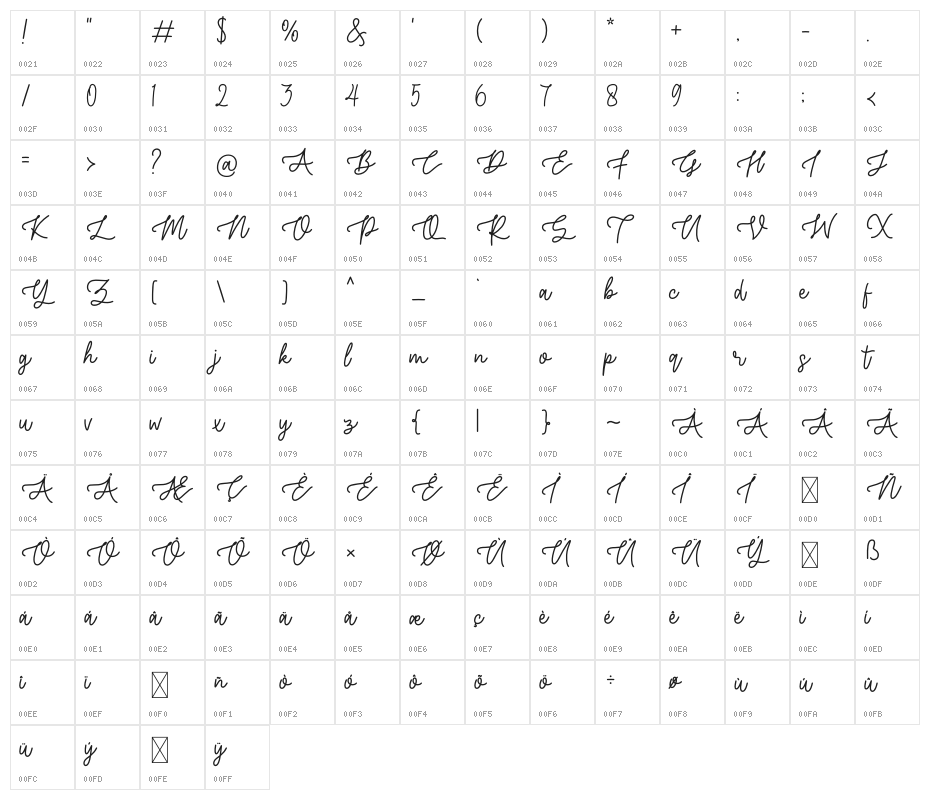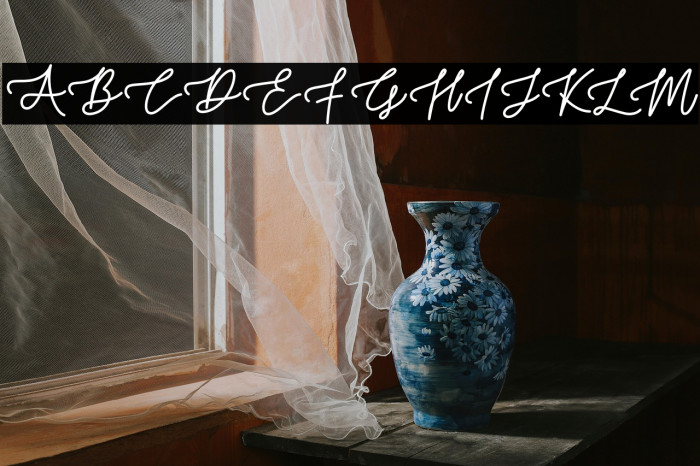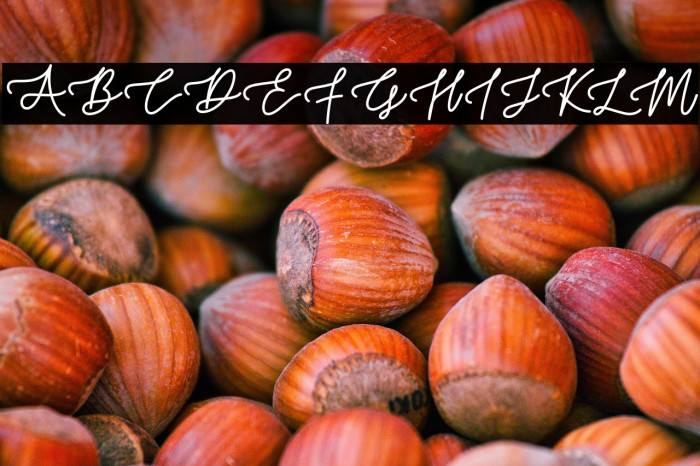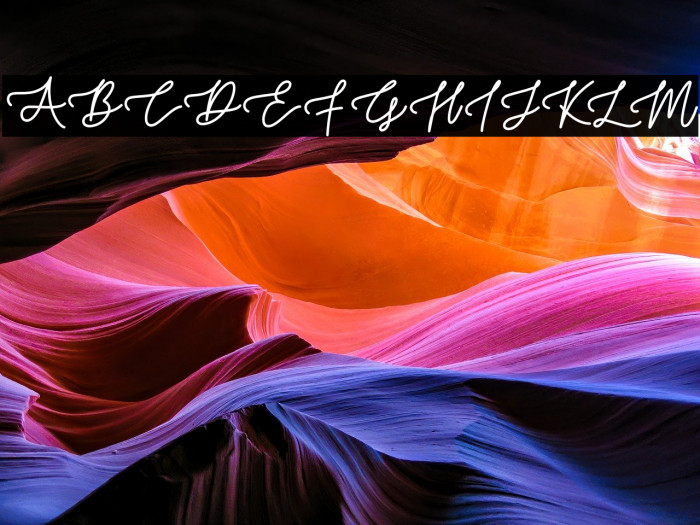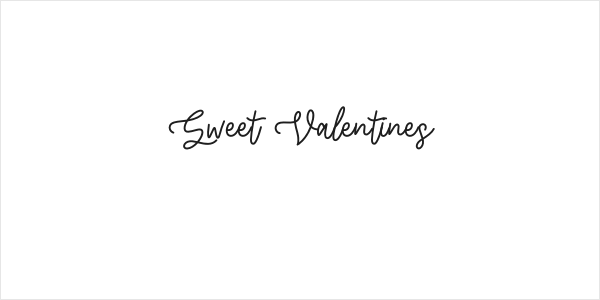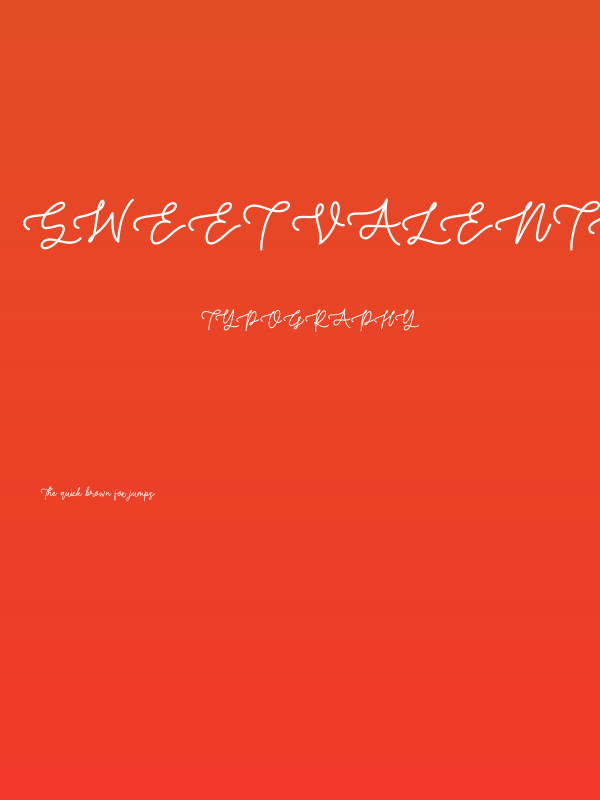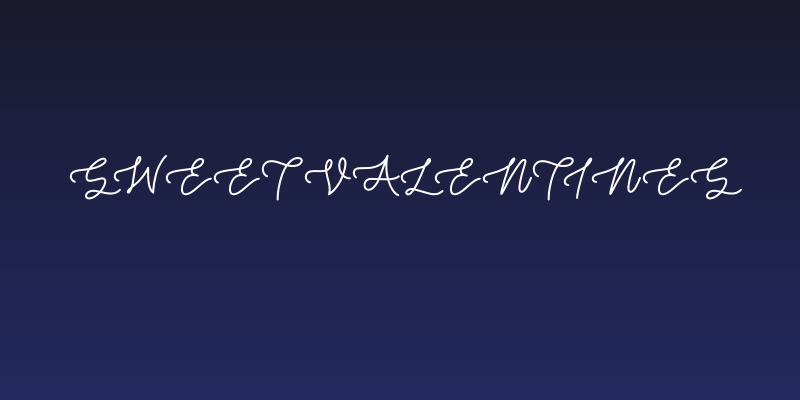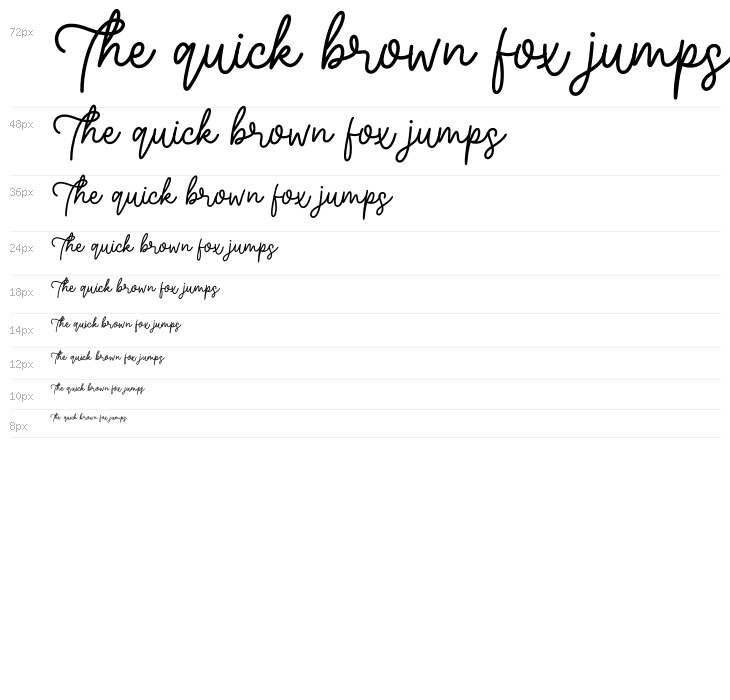
Sweet Valentines Font
Sweet Valentines Description
This font features a charming and fluid script style, characterized by its elegant, flowing lines and smooth curves. The uppercase letters are intricately connected, giving a sense of continuity and grace. The lowercase letters maintain a consistent flow, with rounded edges and a playful touch. Numbers are clear and legible, complementing the overall style. Special characters are thoughtfully designed to match the script's aesthetic, adding versatility to its use. The font exudes a romantic and whimsical feel, making it ideal for projects that require a personal and heartfelt touch.
| Overall Style | Romantic, Whimsical |
| Proposed Projects | Perfect for wedding invitations, greeting cards, personal branding, and romantic-themed designs. |